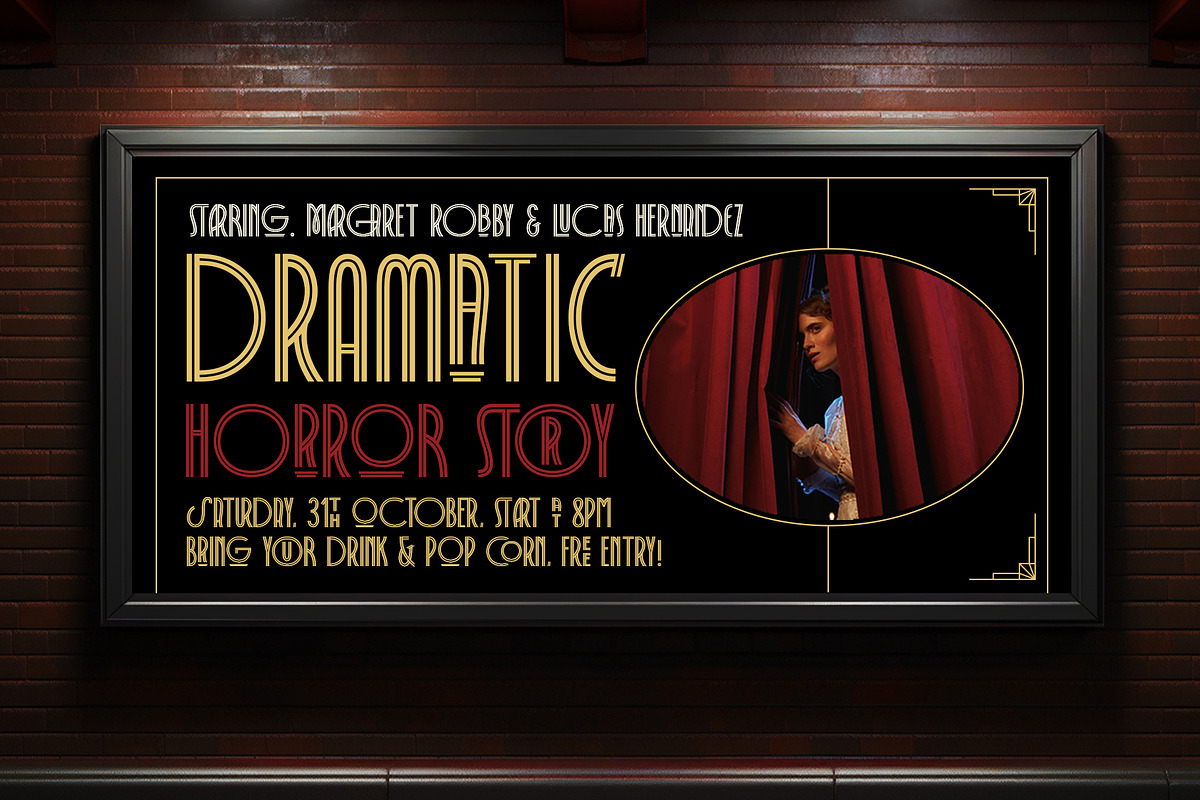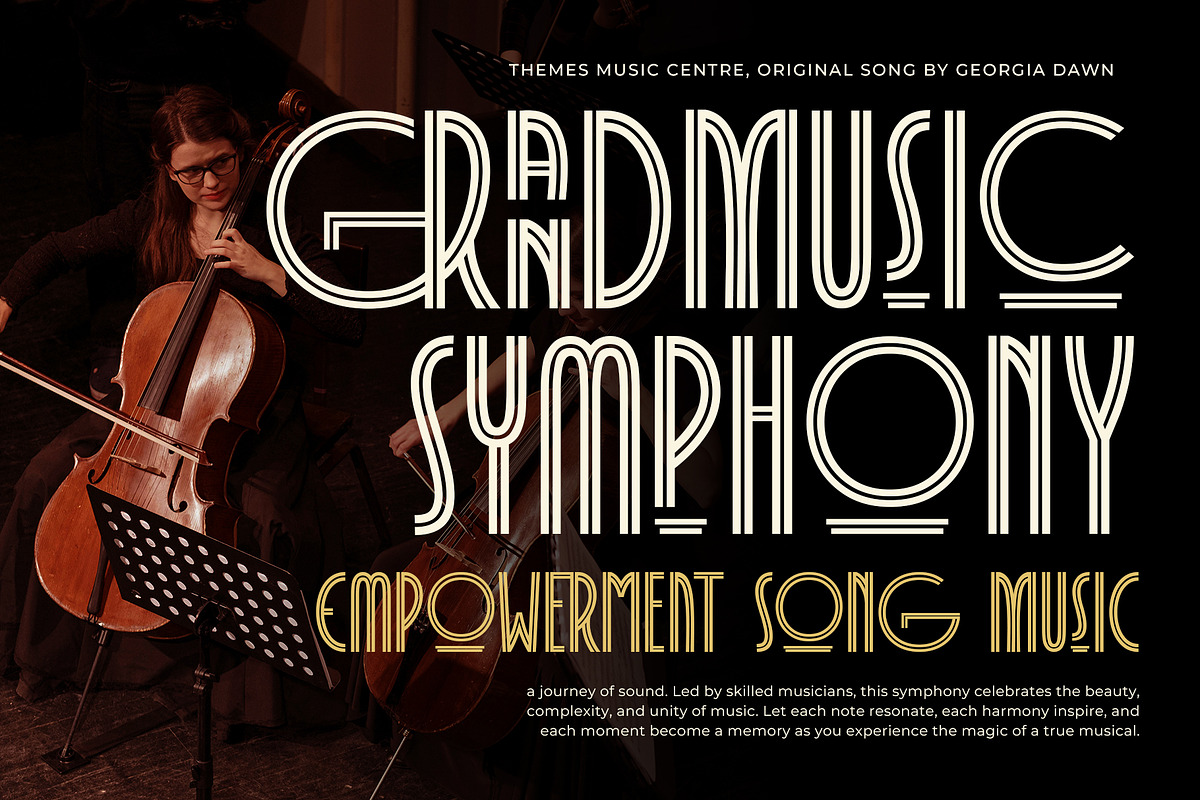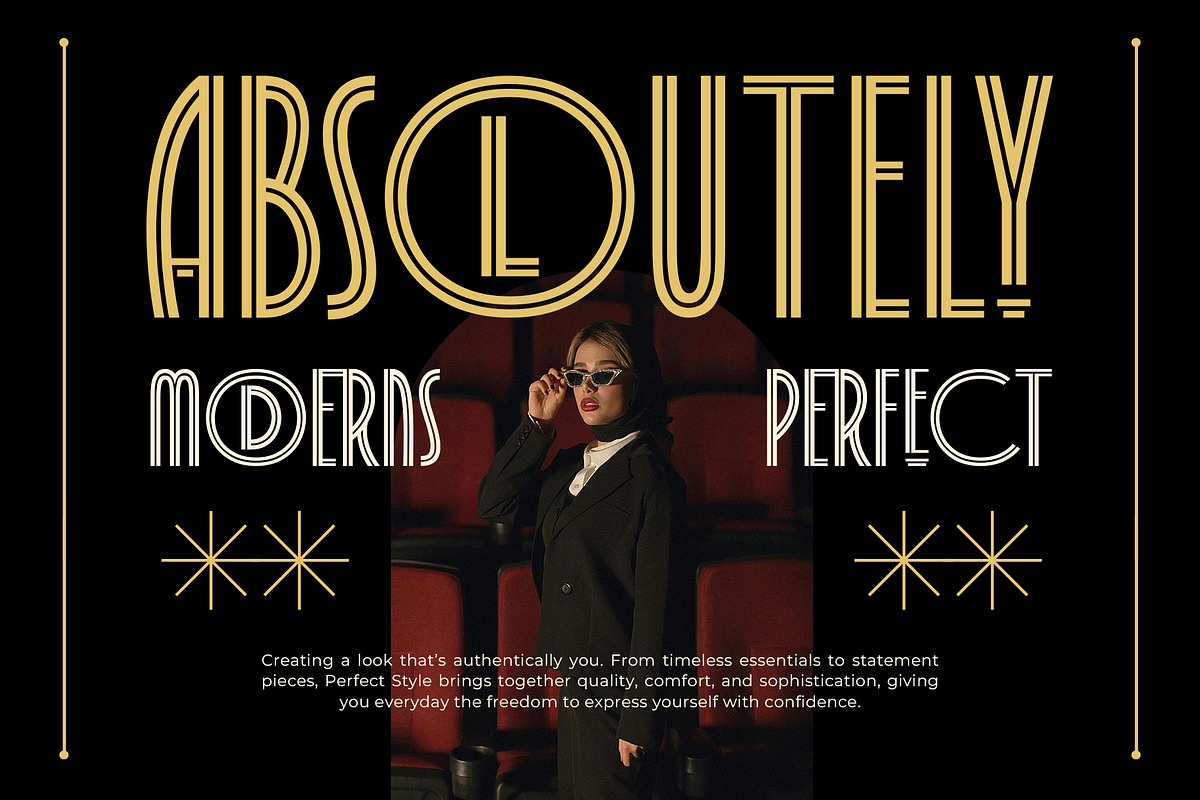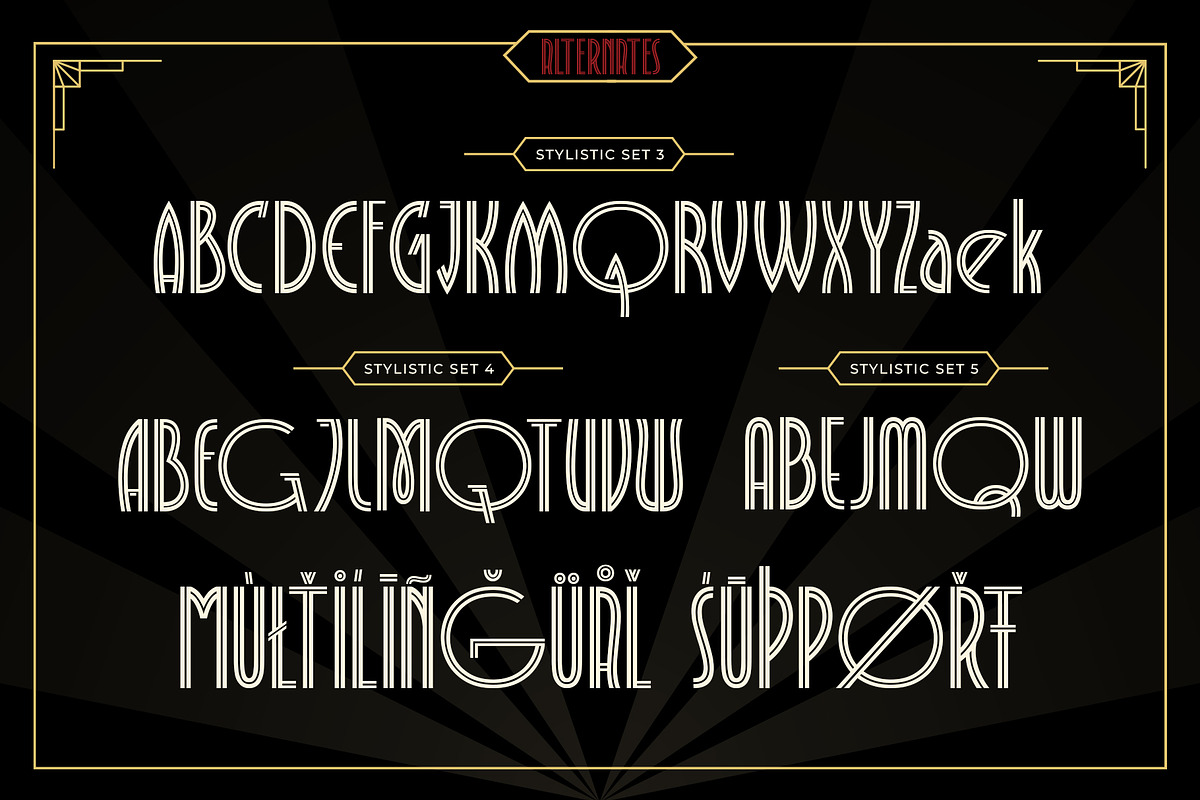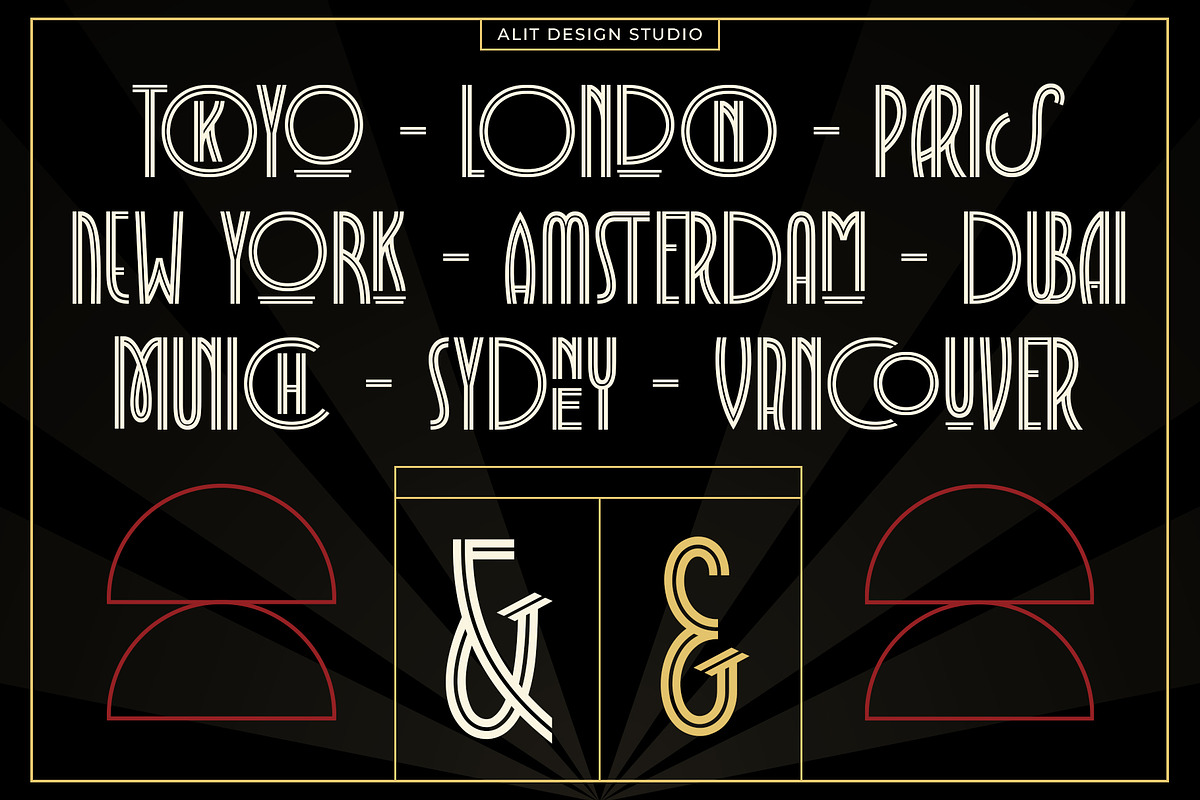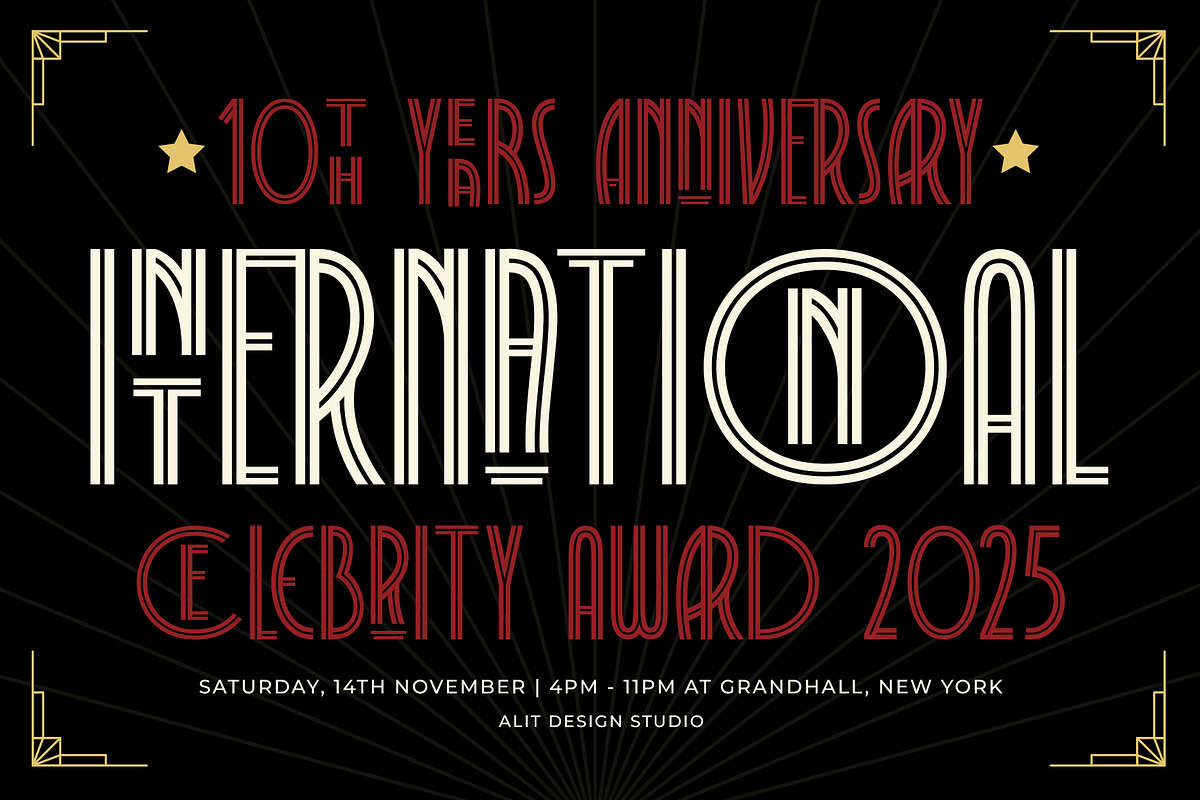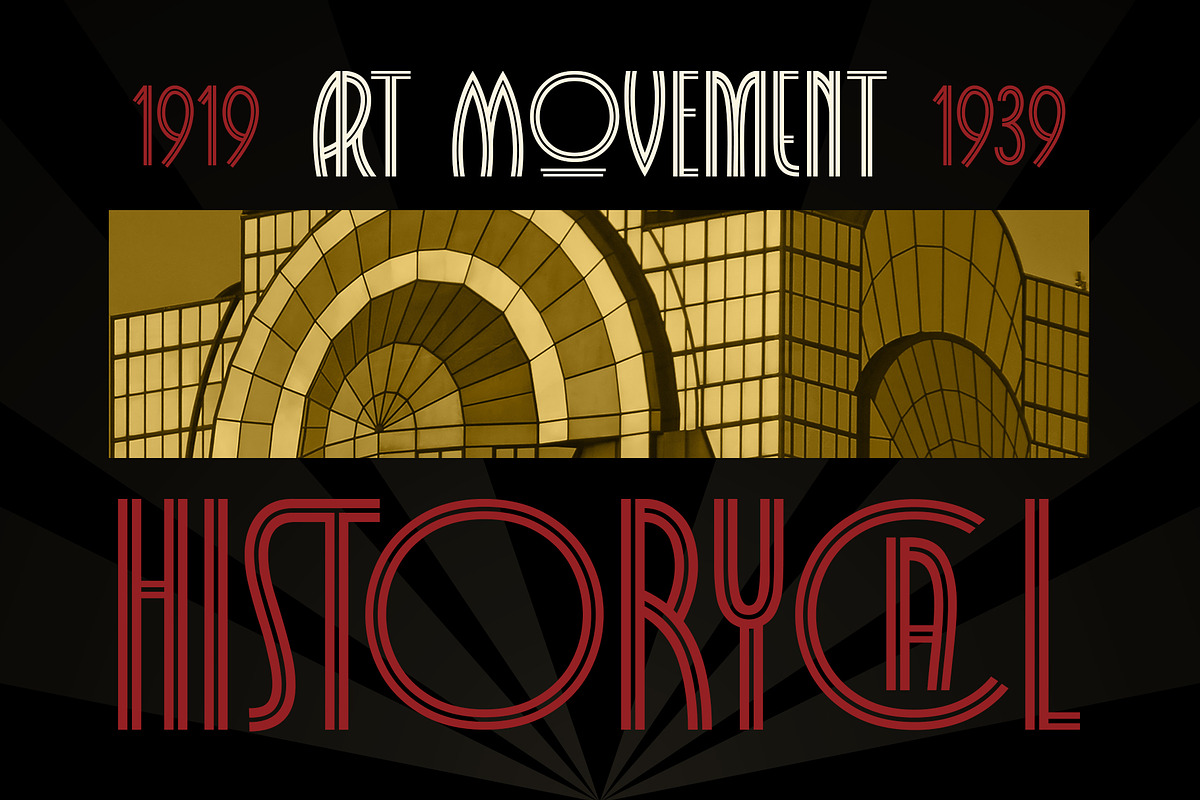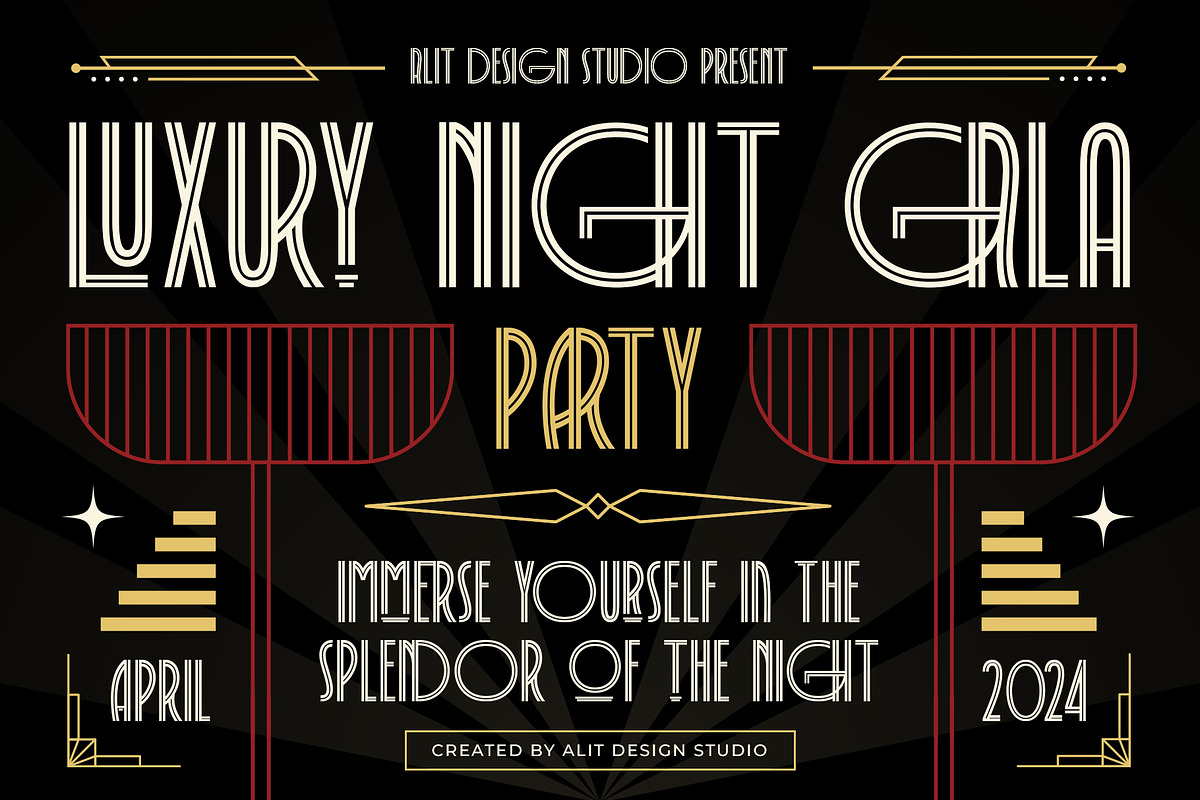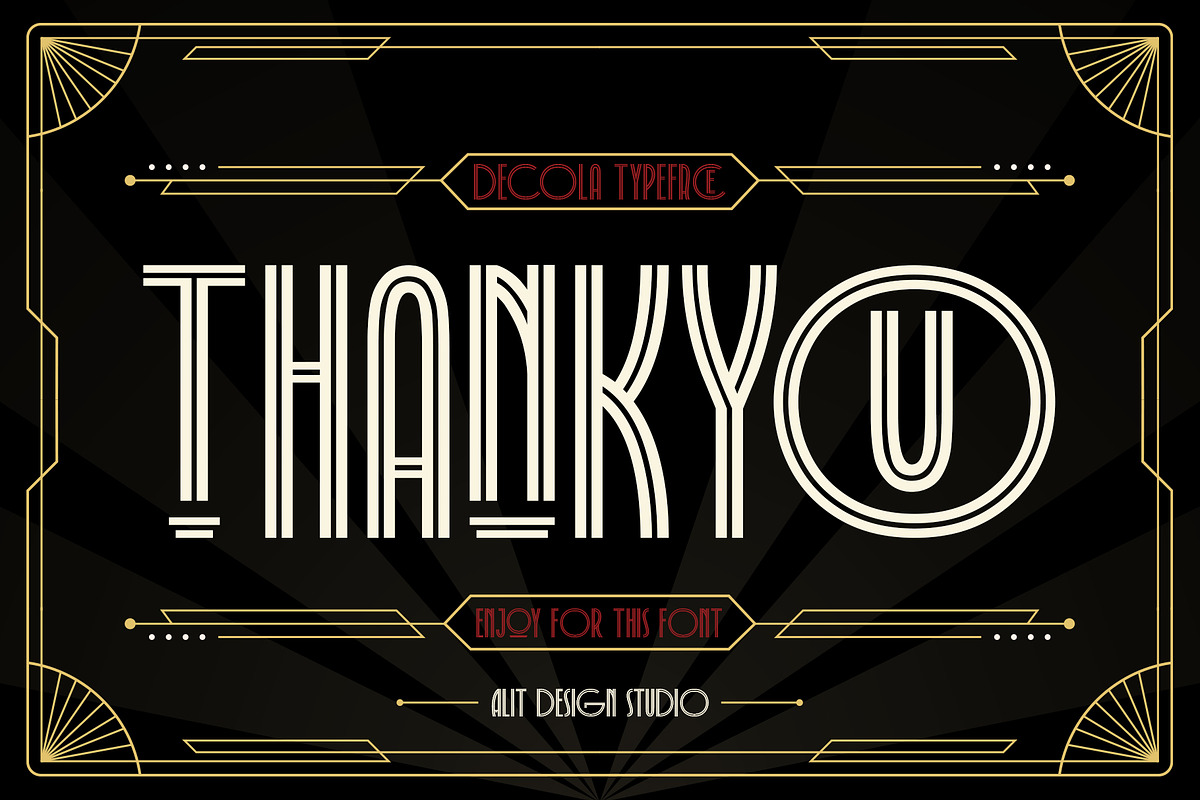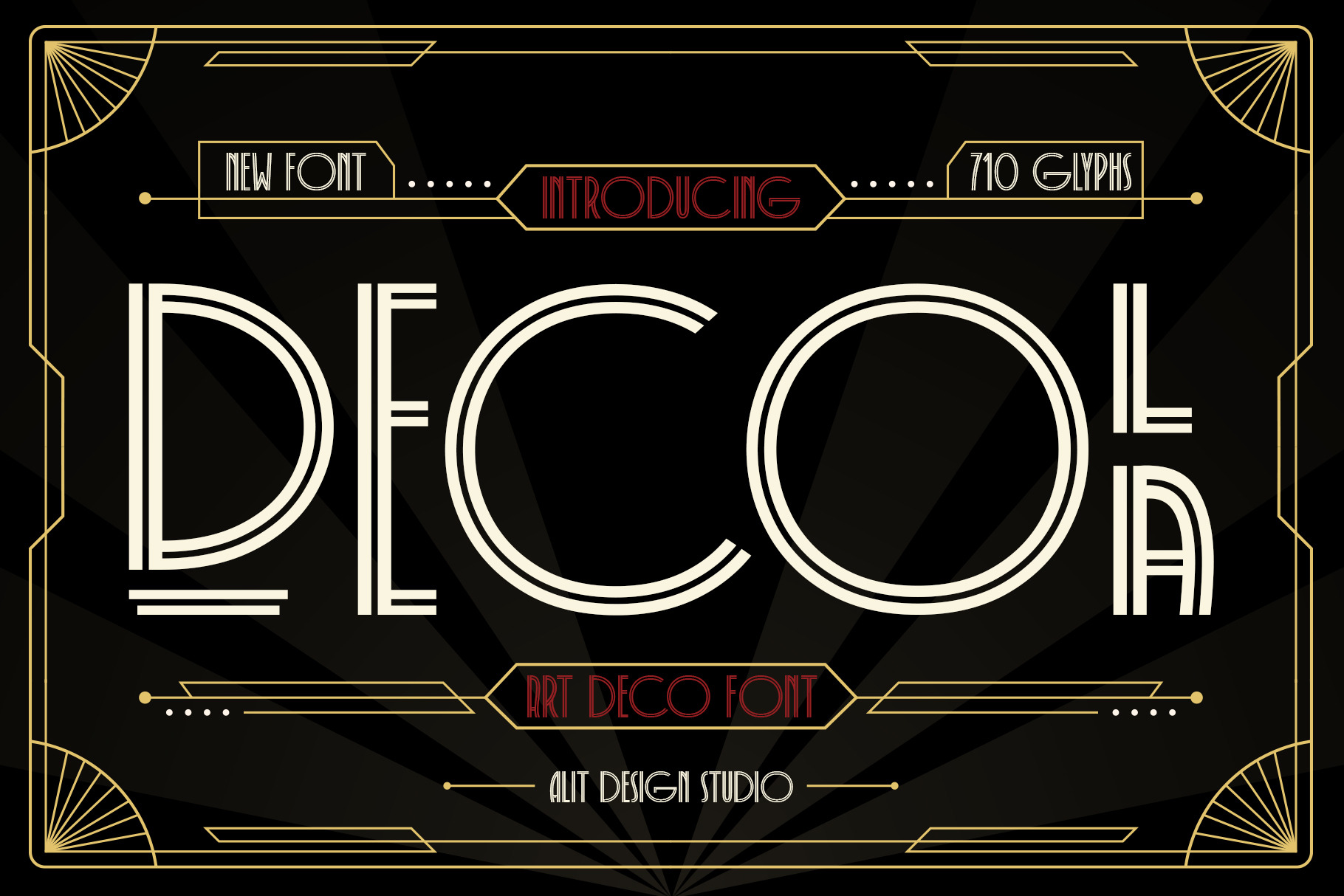
Decola Art Deco Typeface
The Decola Art Deco Typeface is a masterful blend of elegance and vintage charm, inspired by the bold and opulent aesthetics of the Art Deco era. This unique typeface is defined by its dynamic 2-line body, which creates a sense of sophistication and movement, making it ideal for modern designs that aim to evoke timeless luxury.
- 710 Characters: A comprehensive set of characters that ensures flexibility and creativity for various design needs.
- Extensive Alternatives: Offers a multitude of alternate glyphs, enabling users to create diverse and visually striking compositions.
- Ligatures: Built-in ligatures provide seamless and artistic connections between specific letter combinations for a polished and professional look.
- Swashes: Beautiful swash elements add flair and drama to your typography, perfect for headlines, invitations, or branding.
- Multilingual Support: Full support for an array of languages ensures this font is versatile and global.
Ideal For:
- Luxury branding
- Editorial design
- Event invitations
- Packaging
- High-end advertisements
Decola Art Deco Typeface is the epitome of vintage elegance meeting modern functionality, a true asset for any designer looking to elevate their projects with a touch of Art Deco grandeur.